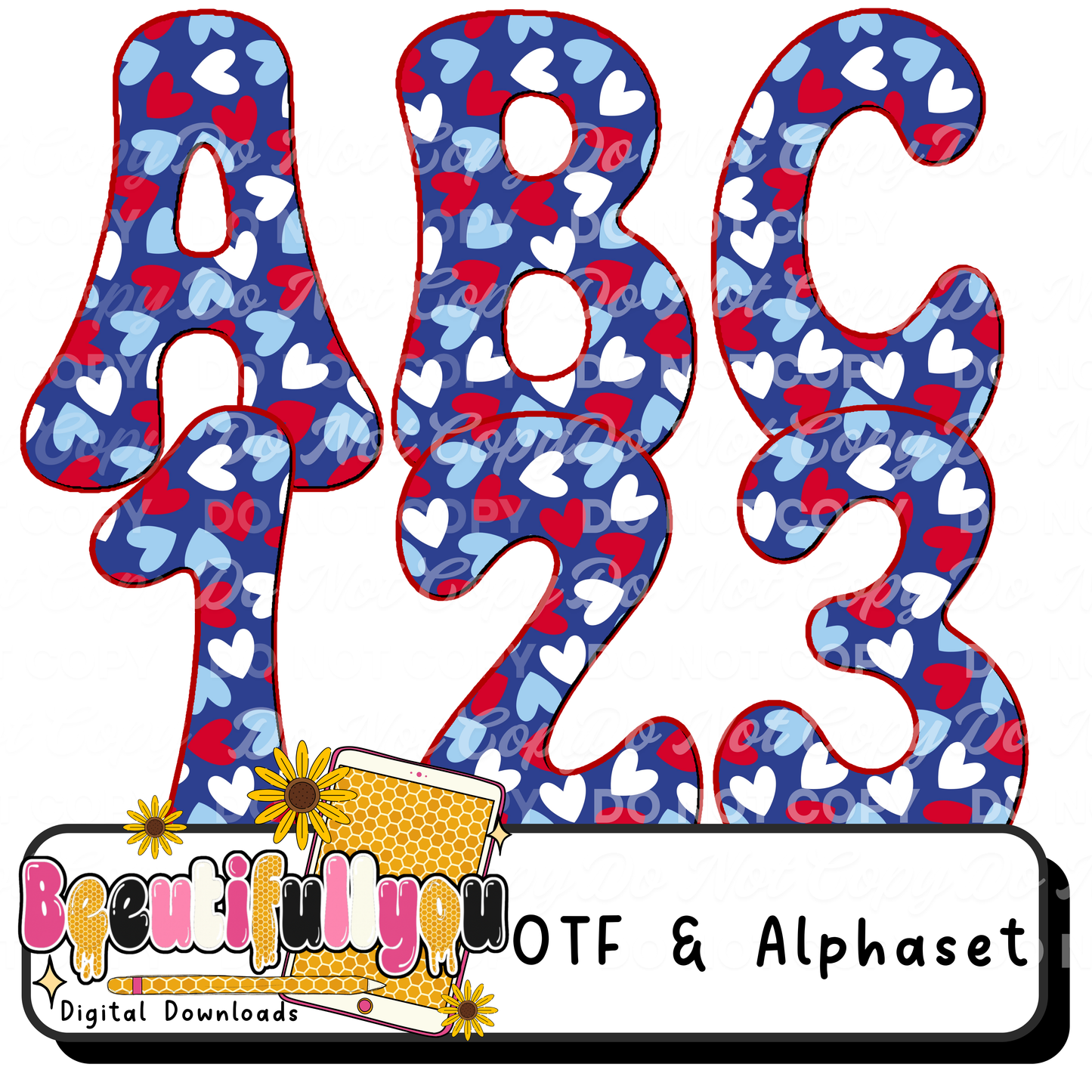
Patriotic Heart Font OTF + PNG Alphabet | Red White Blue Bubble Letters | 4th of July Heart Font | USA Font
šŗšøā¤ļø Sweet + patriotic + trendy all in one!
This adorable red, white, and blue heart-pattern font is perfect for your 4th of July and summer collections. Featuring bold bubble letters filled with cute heart details, this set gives you both an installable OTF font AND PNG alphabet lettersfor maximum versatility.
Perfect for boutique-style designs, mommy + me sets, and all your patriotic drops š
ā Bold bubble letter style